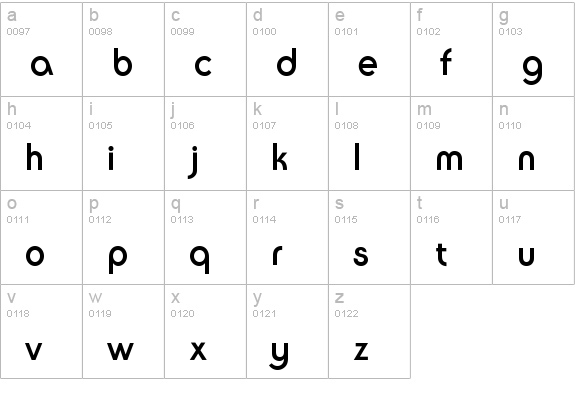
RondaEF is a stunning and versatile font that combines elegance with a touch of modernity. This timeless typeface exudes sophistication and style, making it perfect for a wide range of design projects. Its sleek lines and smooth curves create a seamless flow that captures attention and elevates any text it adorns. RondaEF is ideal for branding, logos, invitations, posters, and more. The best part? RondaEF is completely free to download at FontsMarket.com. This means you can add this beautiful font to your collection without any cost, allowing you to unleash your creativity without limitations. Don't miss out on this opportunity to enhance your designs with the exquisite beauty of RondaEF. Download it now and start creating stunning visuals that stand out from the crowd.